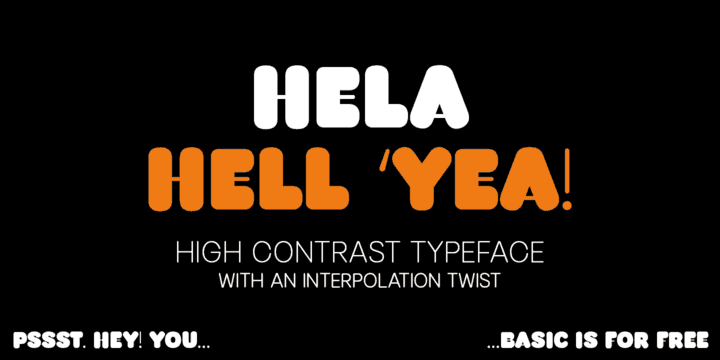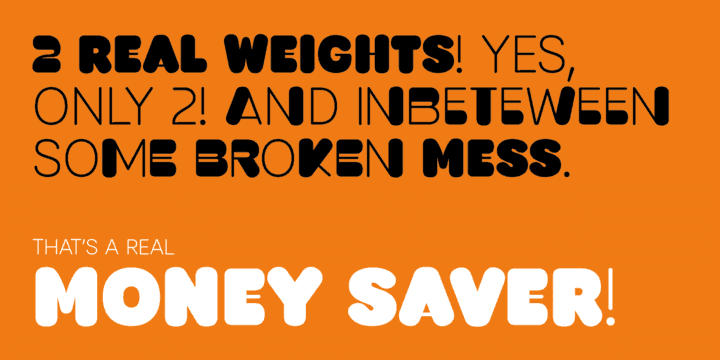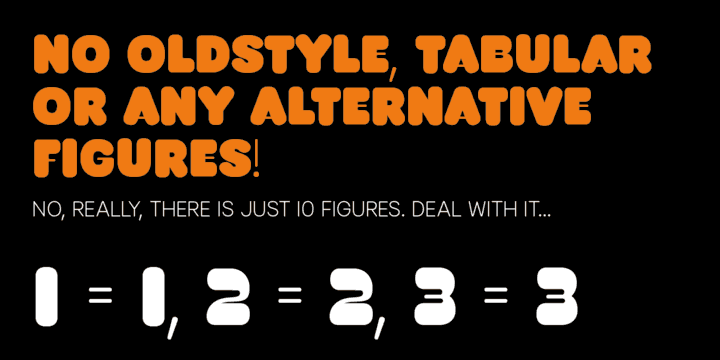
Introducing Hela Font. Hela is a font with high contrast and rounded characters that also has an interpolation twist. Hela is the old Czech lettering of a textile company called Helana, which does not exist anymore but the signage is still on the building. The odd thing on this font is that it does not make the weight of every stem from Light to Black as usual, but instead adds more and more black stems to the light skeleton.